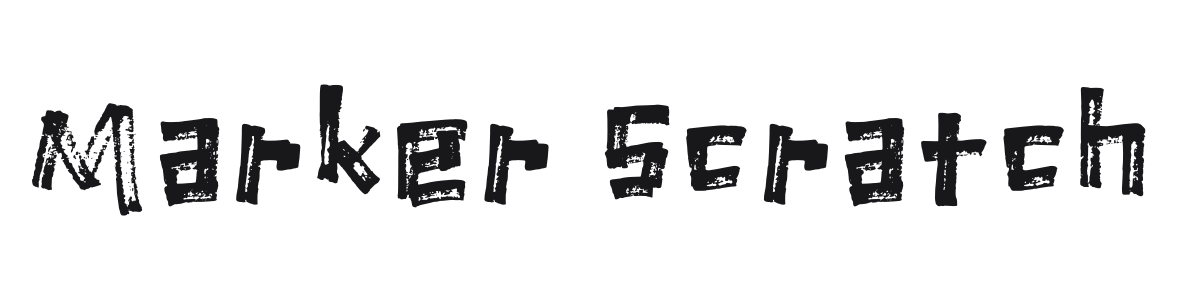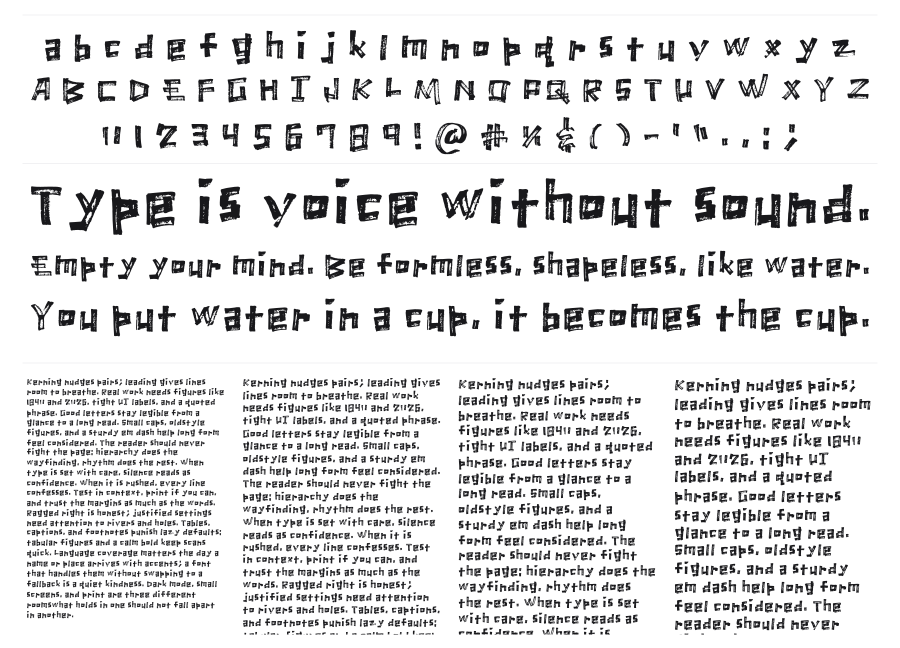
Marker Scratch
Marker Scratch is a distressed display font built on blocky sans-serif construction buried under heavy ink scratch texture. Every character looks like it was drawn with a dry marker on rough paper, then photocopied twice. The result has genuine grit, making it a strong choice for band merch, zine headlines, skate brands, or anything that needs to feel handmade and unpolished.